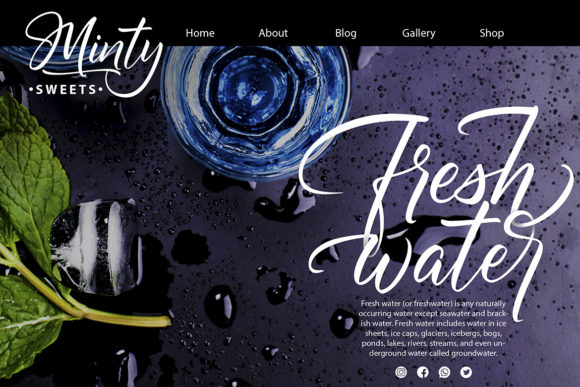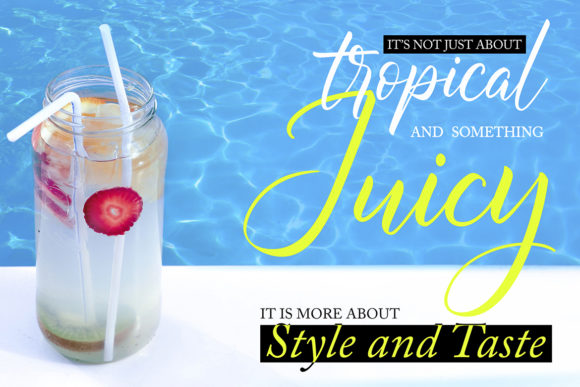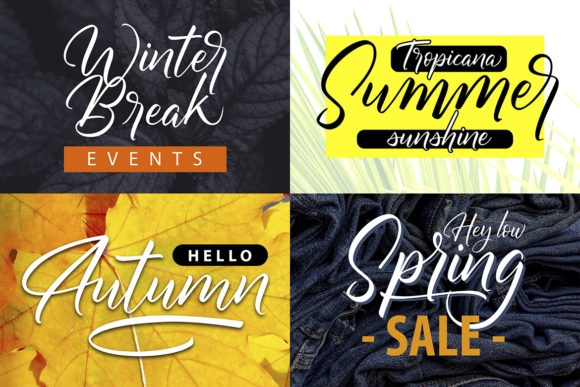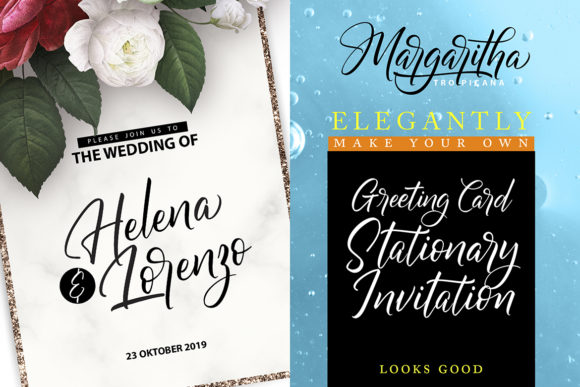
Introduction to Margaritha Tropicana Font Font
Fonts play a crucial role in design, and the Margaritha Tropicana Font font is a typeface that brings both character and versatility to any project. Whether you’re working on a branding project, a website, or a print design, the Margaritha Tropicana Font font offers a unique style that can elevate your work.
Margaritha Tropicana radiates elegance and authenticity in each of its boldly drawn letters.
Key Features of Margaritha Tropicana Font Font
Why Choose Margaritha Tropicana Font Font?
The Margaritha Tropicana Font font is more than just a typeface – it’s a design tool that helps you communicate your message with style and clarity. Its unique character set and versatile design make it suitable for a wide range of applications, from elegant invitations to bold headlines.
With its carefully crafted letterforms and balanced proportions, the Margaritha Tropicana Font font ensures readability and visual appeal across all mediums.
What makes Margaritha Tropicana Font font special?
The Margaritha Tropicana Font font stands out with its unique design, exceptional readability, and versatility across various design applications.